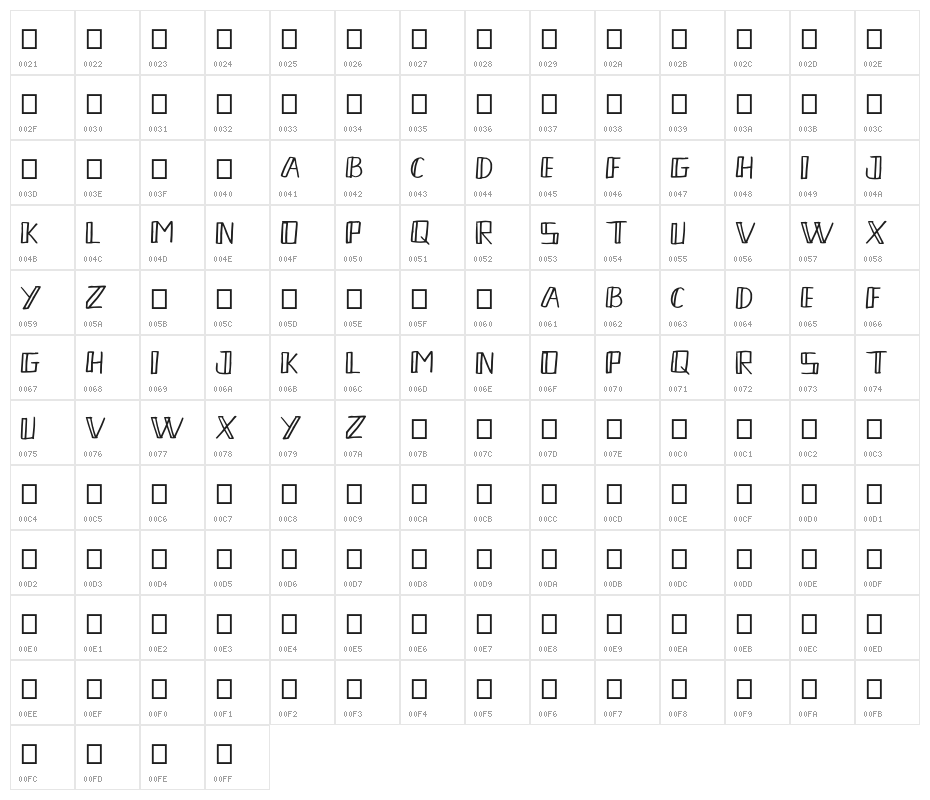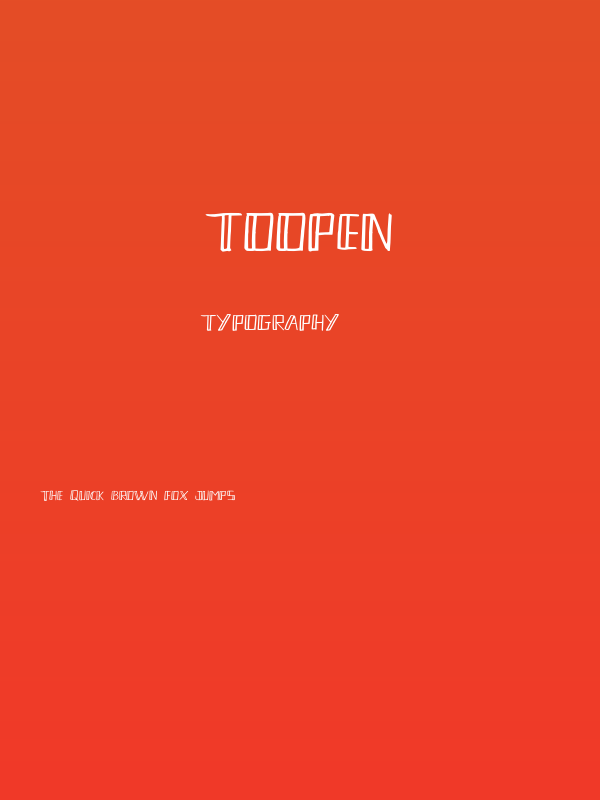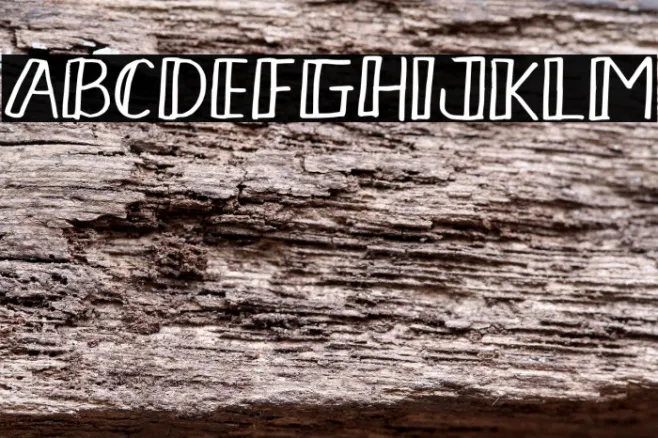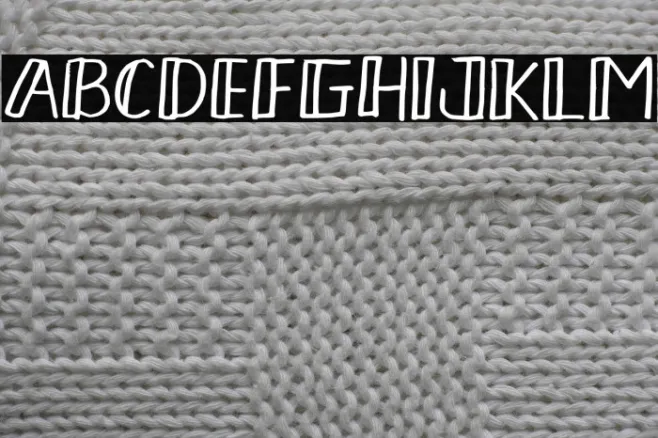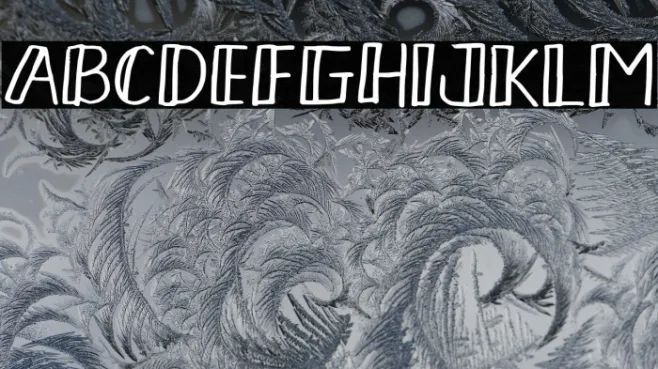
TOOPEN Font
TOOPEN Description
This font features a unique, hand-drawn style with a playful and artistic flair. The uppercase letters are characterized by their angular, slightly irregular shapes, giving them a dynamic and energetic appearance. The strokes are bold and consistent, with a slight tilt that adds to the casual, informal feel. The lowercase letters maintain the same style, ensuring cohesion throughout the text. The numbers and special characters follow the same design principles, making the font versatile for various uses. The overall look is modern and creative, suitable for projects that require a touch of individuality and creativity.
| Proposed Projects | Ideal for creative projects such as posters, invitations, branding, and social media graphics. |